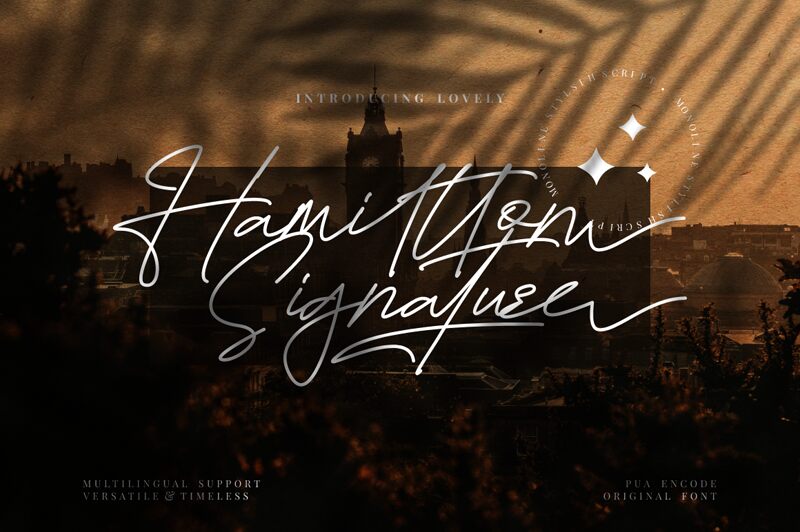
Hamiltton Signature emerges as a masterpiece of artistry from the creative minds at FinType Studio, embodying the quintessence of personalized elegance. This handwritten font boasts an extra-light weight that exudes a sense of delicate sophistication, making each character appear as though it was gracefully penned by hand. The fluidity of Hamiltton Signature's strokes lends an intimate and bespoke charm, perfect for invitations, branding, and editorial designs seeking a touch of human warmth.
With its refined curves and subtle swashes, Hamiltton Signature invites viewers into a world where design meets personal expression. Its aesthetic appeal lies in its ability to capture the spontaneity and uniqueness of handcrafted script while maintaining exceptional legibility and class.
This font is not only visually striking but also versatile in application; it can add a signature flourish to logos or serve as an enchanting choice for personalized stationery. Whether you're crafting wedding invitations or curating a luxury brand identity, Hamiltton Signature offers an air of exclusivity that will set any creative project apart with its distinctively chic style.
Hamiltton Signature